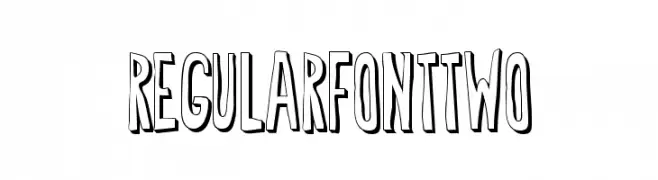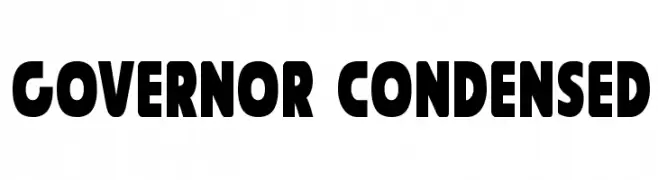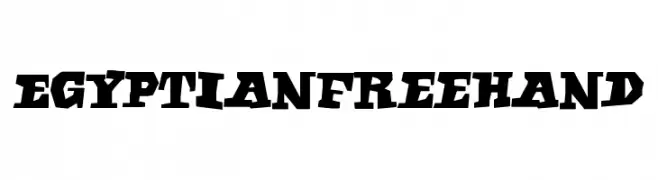
Casual handwritten script with rounded, playful forms.
A bold, playful, hand-drawn font with a three-dimensional look.
A bold, expanded, semi-italic font with a modern and dynamic style.
A bold, condensed font with rounded edges, perfect for impactful headlines.
A playful, hand-drawn font with heart motifs and a whimsical style.
A bold, blackletter font with intricate details and a historical feel.
A bold, hand-drawn style font with thick, uneven strokes.